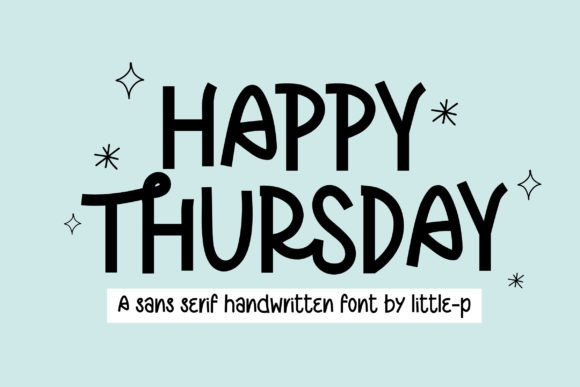
Happy Thursday Font
“Happy Thursday” a sans-serif handwritten font that embodies playfulness and relaxation. This versatile font is designed for easy readability and clear visibility, making it the perfect choice for note-taking, digital planners, journals, educational notes, Goodnotes, greeting cards, quotes, handwritten notes, branding, and beyond. With its effortless charm, “Happy Thursday” adapts seamlessly to various applications, bringing a playful and relaxed vibe to your projects. Make each Thursday a creative adventure with this font, turning your designs into expressions of joy and ease.